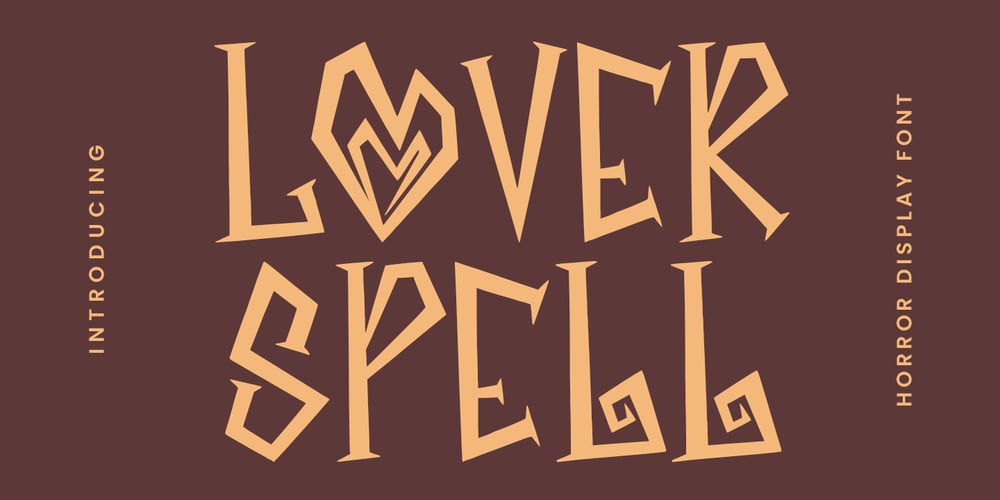
Lover Spell Font Family was designed by Gilang Maulana and published by Maulana Creative. Lover Spell contains 1 styles and family package options. Lover Spell display font. With sharp bold stroke, fun character with a bit of ligatures and alternates. To give you an extra creative work. Lover Spell display font support multilingual more than 100+ language. This font is good for logo design, Social media, Movie Titles, Books Titles, a short text even a long text letter and good for your secondary text font with script or serif. Make a stunning work with Lover Spell display font. Cheers, Maulana Creative